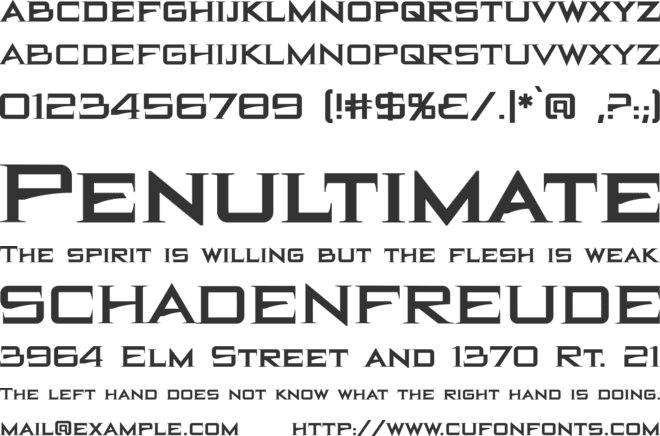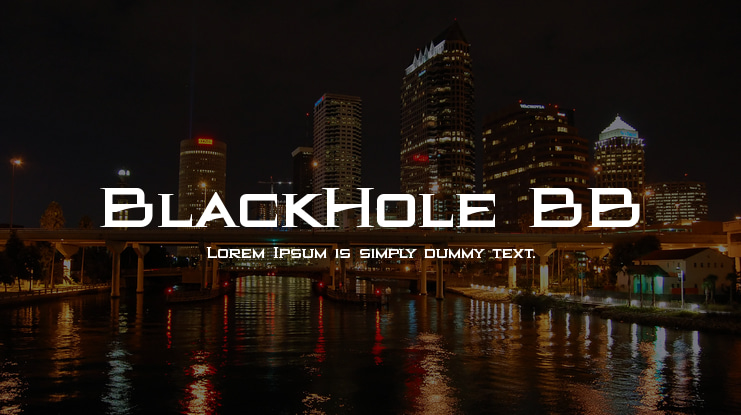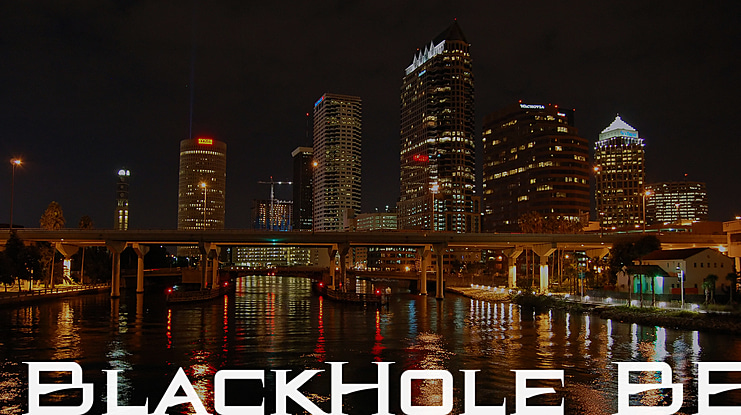
BlackHole BB Font Family
Nate Piekos
I've been in a sci-fi mood lately (FINALLY started watching DR. WHO...I know, I know...) and it inspired this spacey title font. Great for credits, logos, and even the fleet designation on your starcruiser. Comes with Regular and Italic.